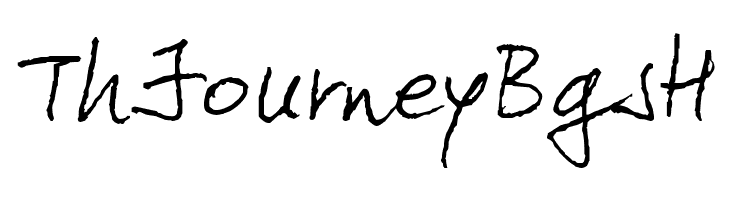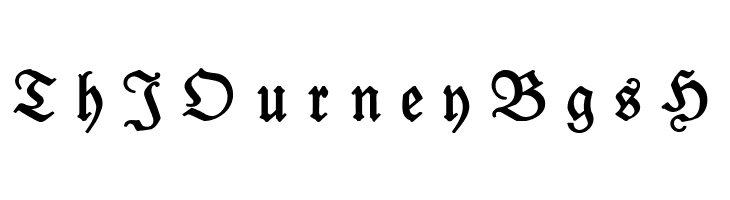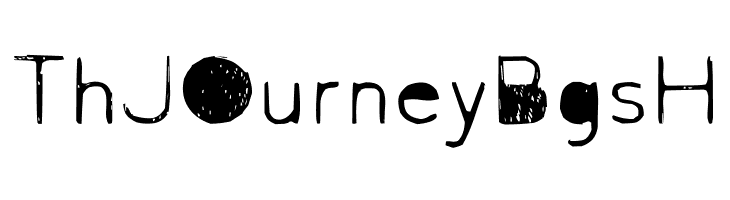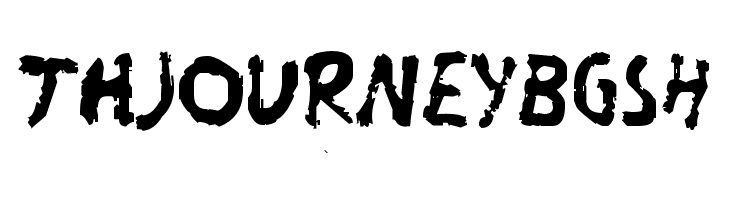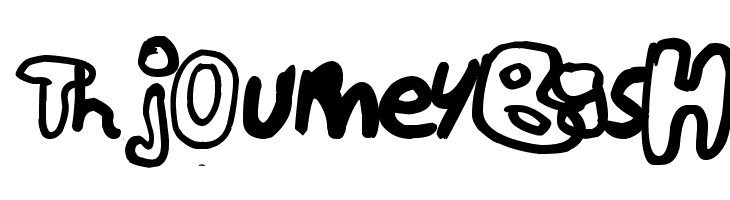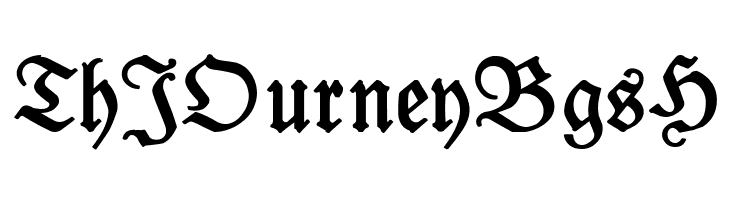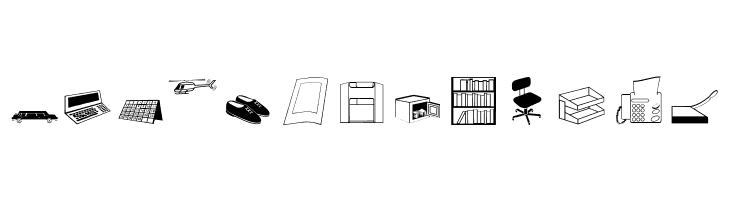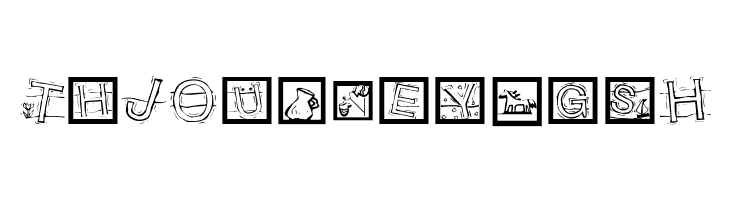
• Leipzig Fraktur Normal
A classic Gothic-style font with ornate and intricate design elements.
• Leipzig Fraktur Normal
( Fonts by Peter Wiegel - www.peter-wiegel.de )
A traditional Blackletter font with ornate, angular designs and historical elegance.
• Leipzig Fraktur Normal
A traditional blackletter font with intricate, ornate letterforms and a historical elegance.
• Lesansa
• LessIsMoreOne
A dingbat font with office and business-themed pictograms.
• Letrograda
• LettersSnakesAndMore
A whimsical, illustrated font with each letter embedded in unique artwork.
• LeviPen Normal
A casual, handwritten font with a natural, flowing style.
• Lietz LindauHamburg
• Liitu
( Fonts by www.junkohanhero.com )
A bold, brush-style font with an expressive and dynamic appearance.